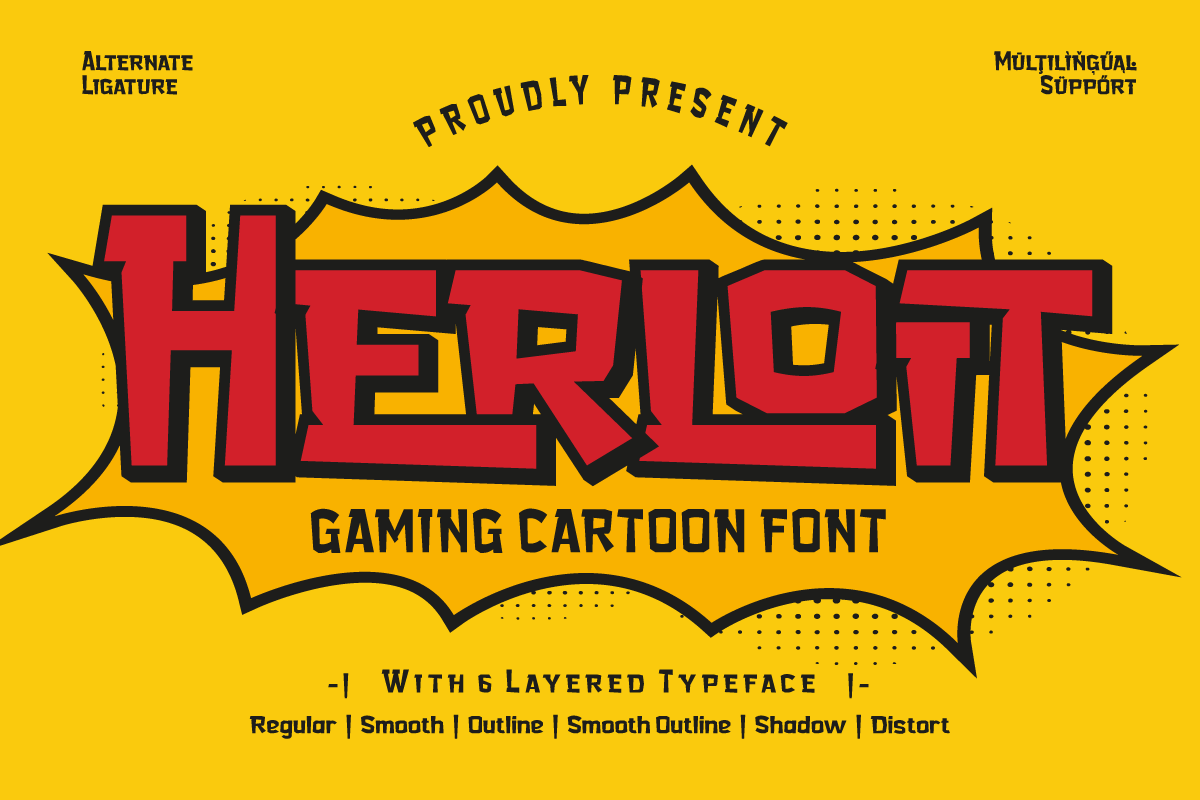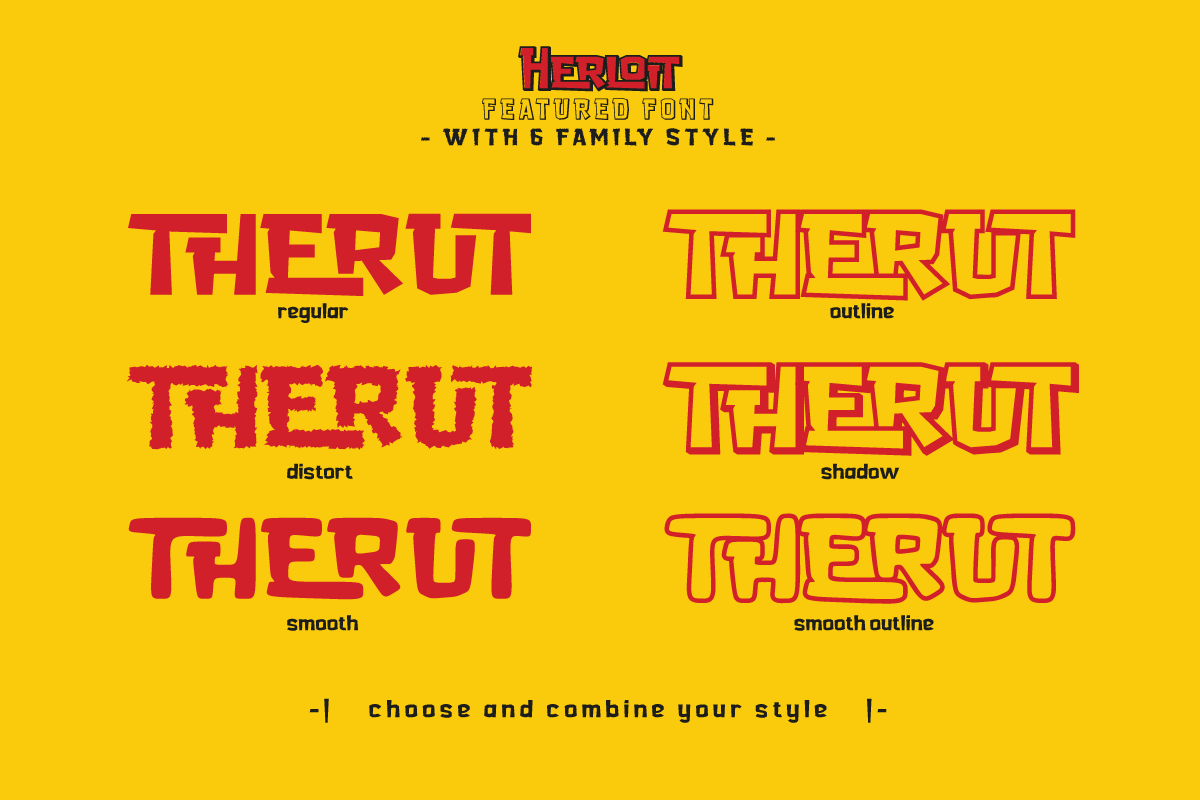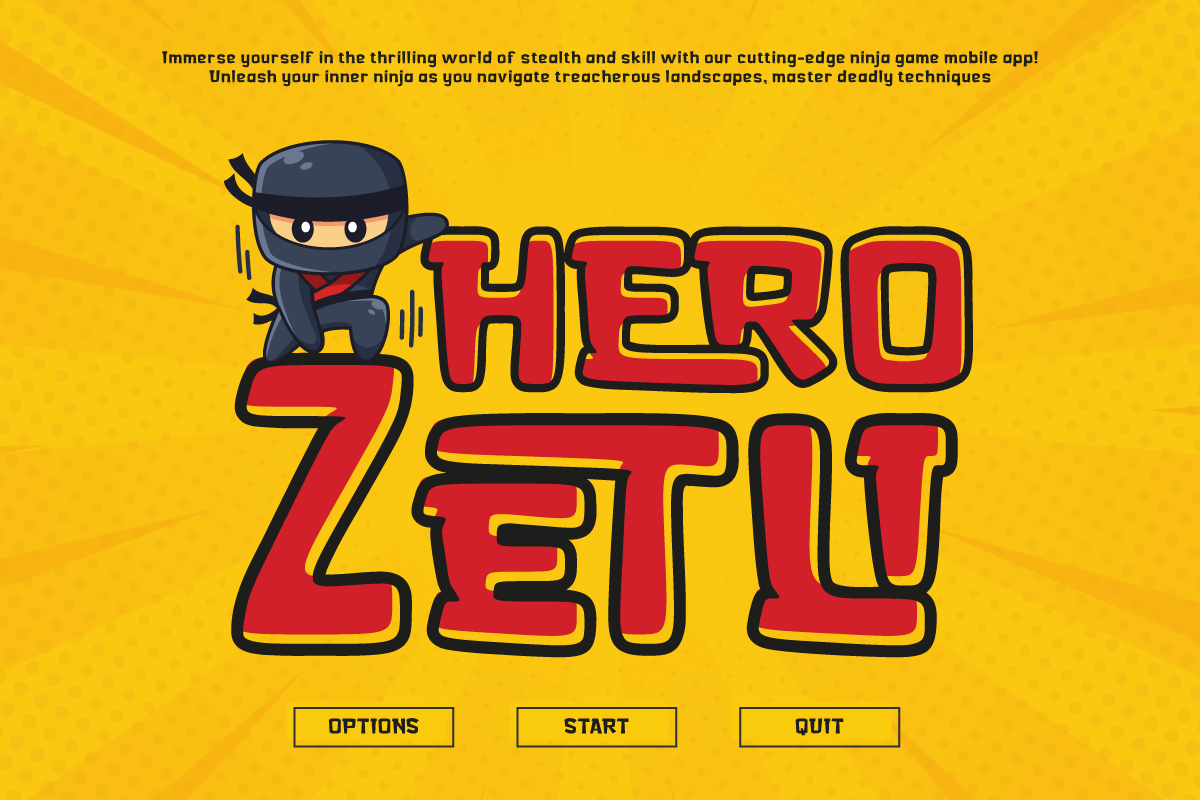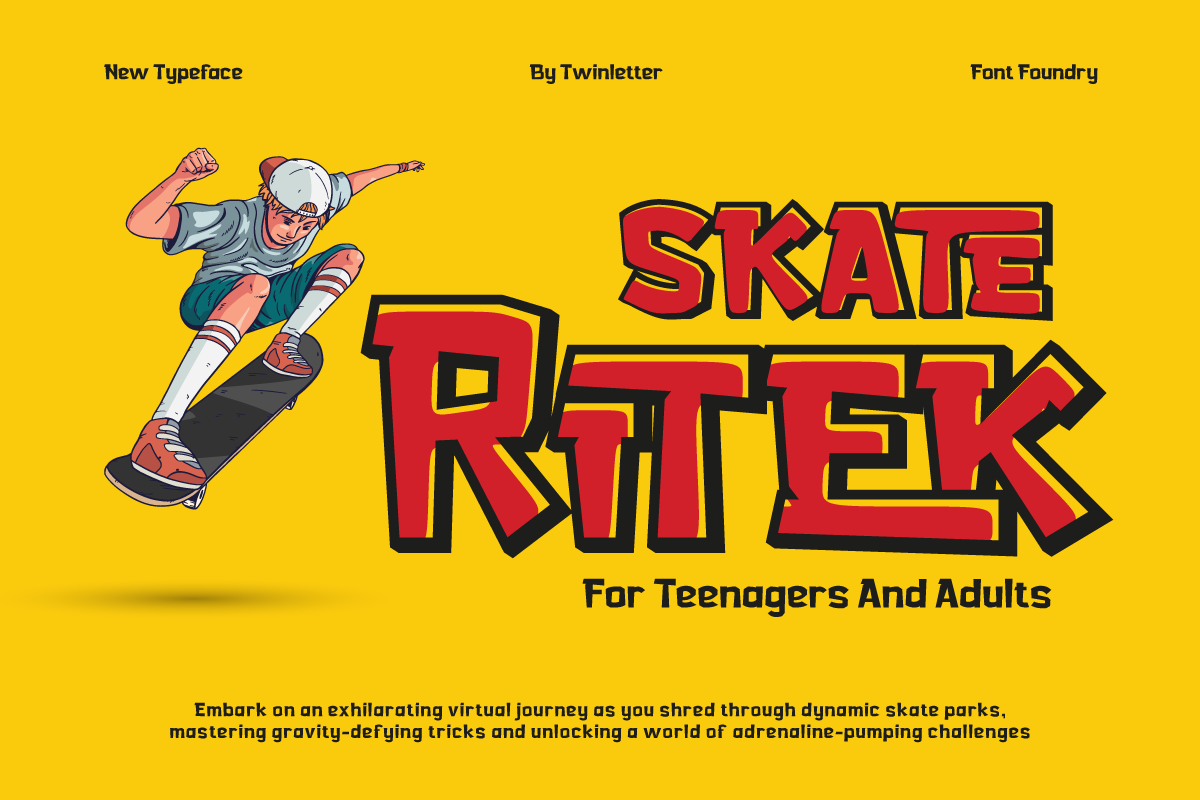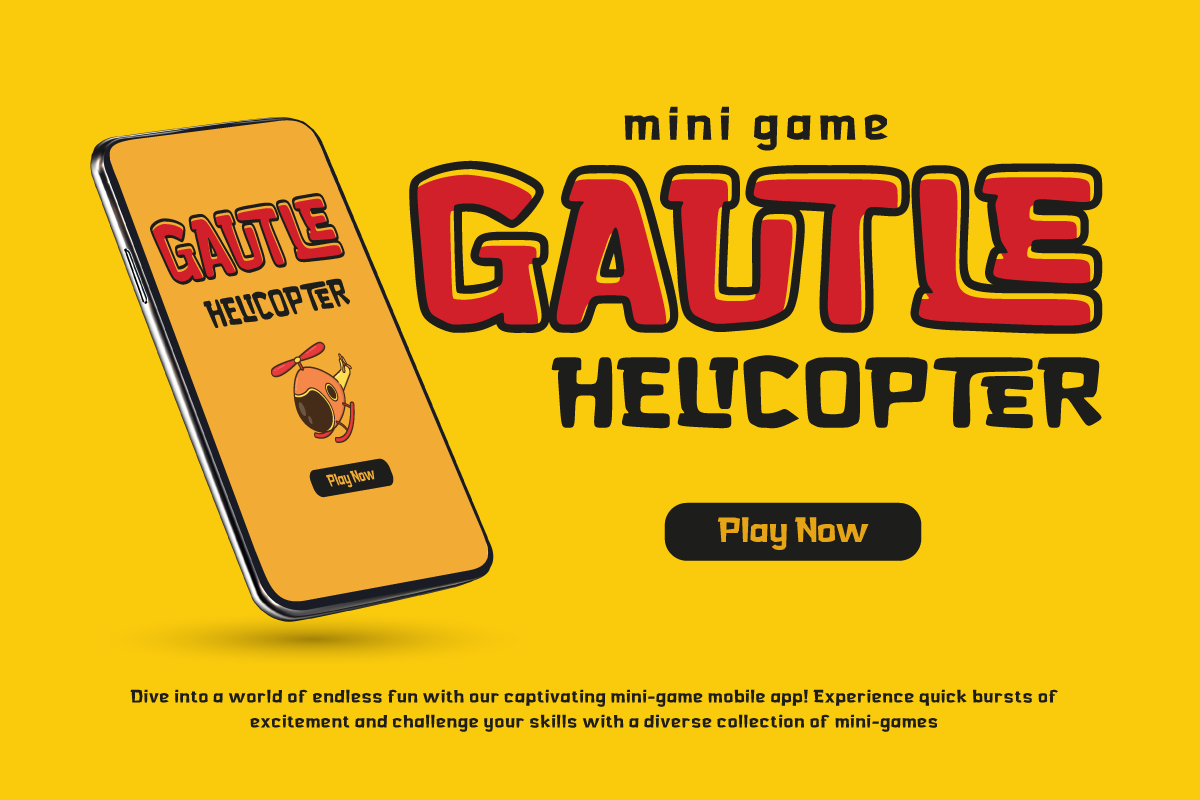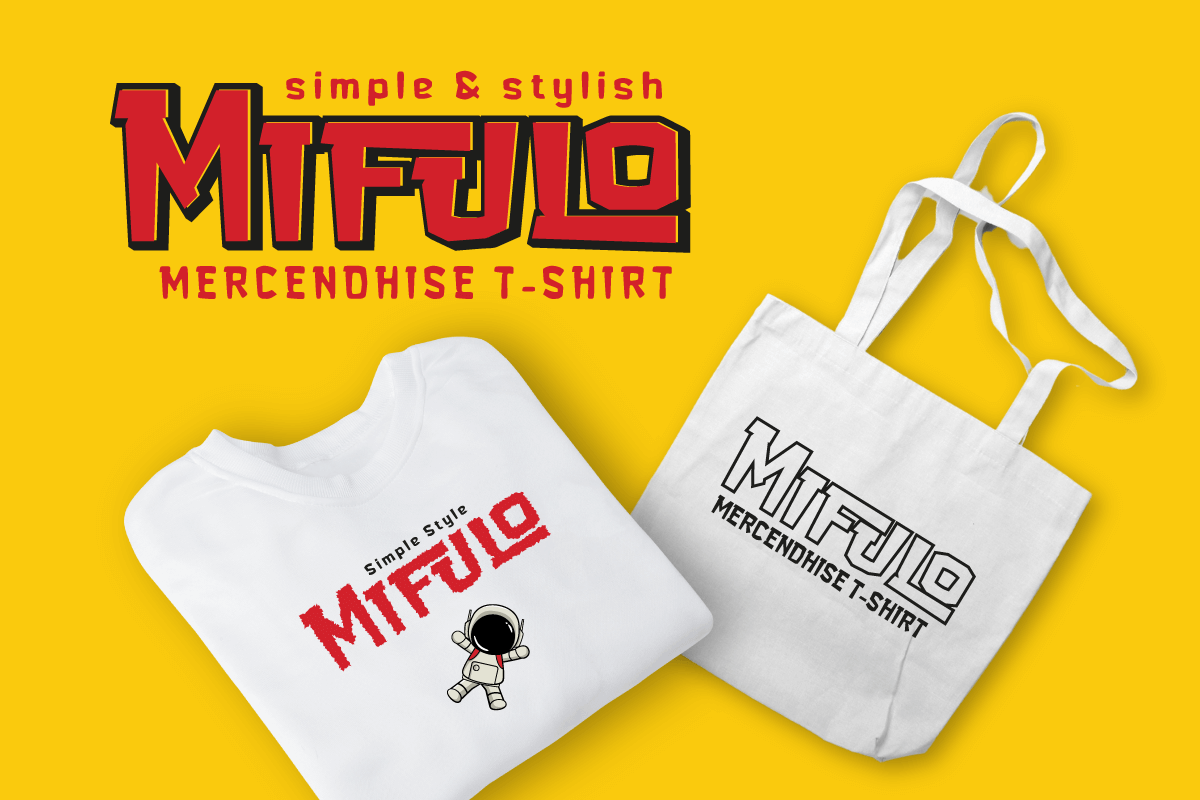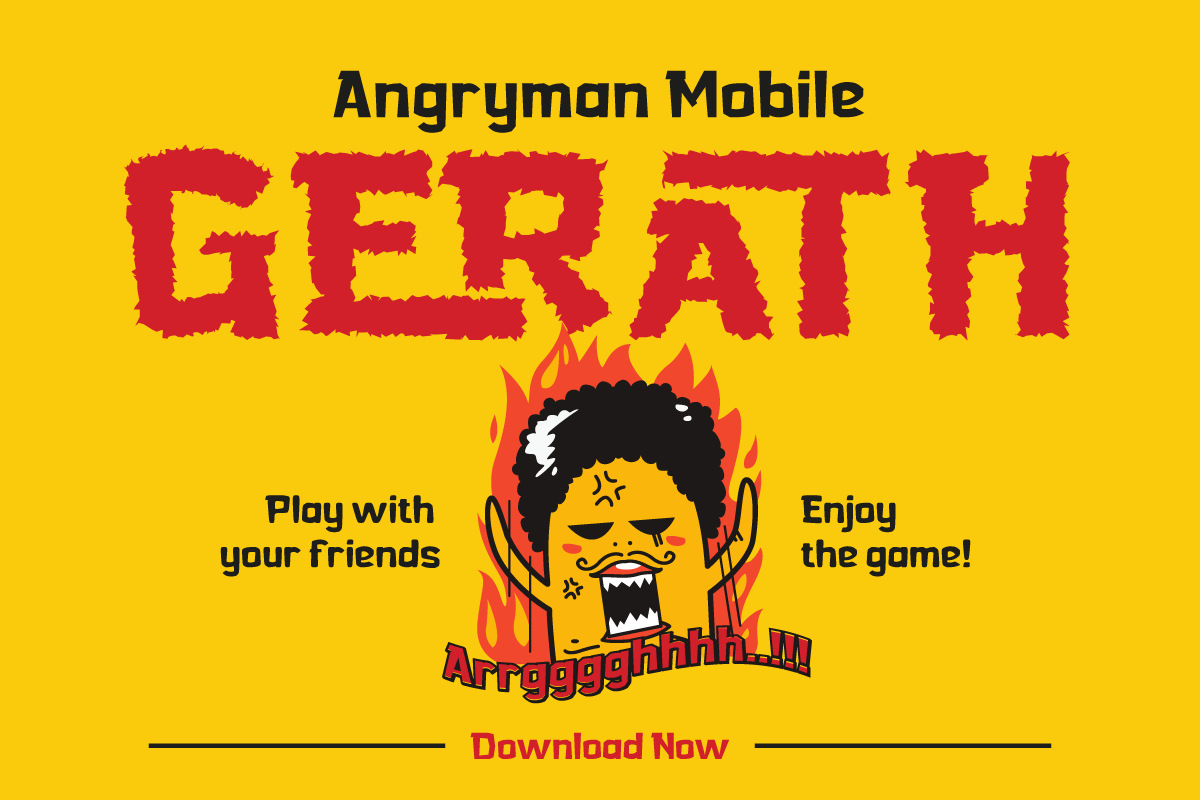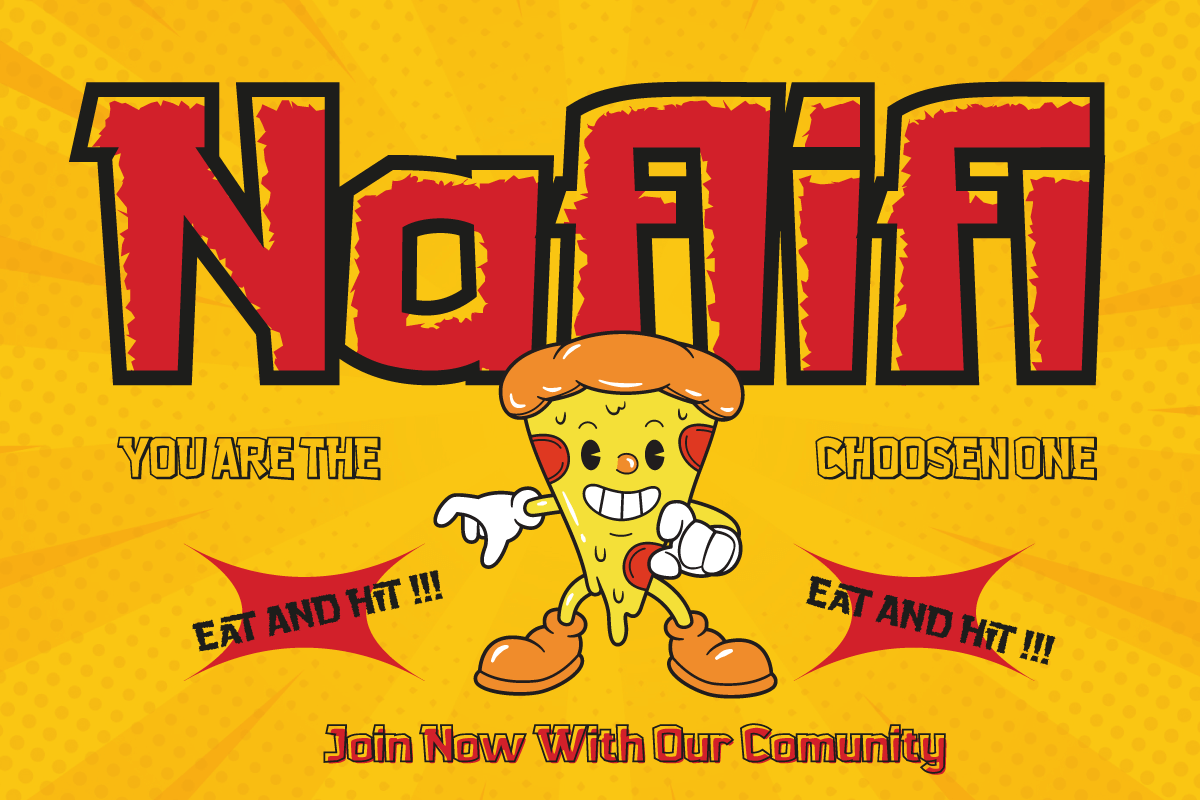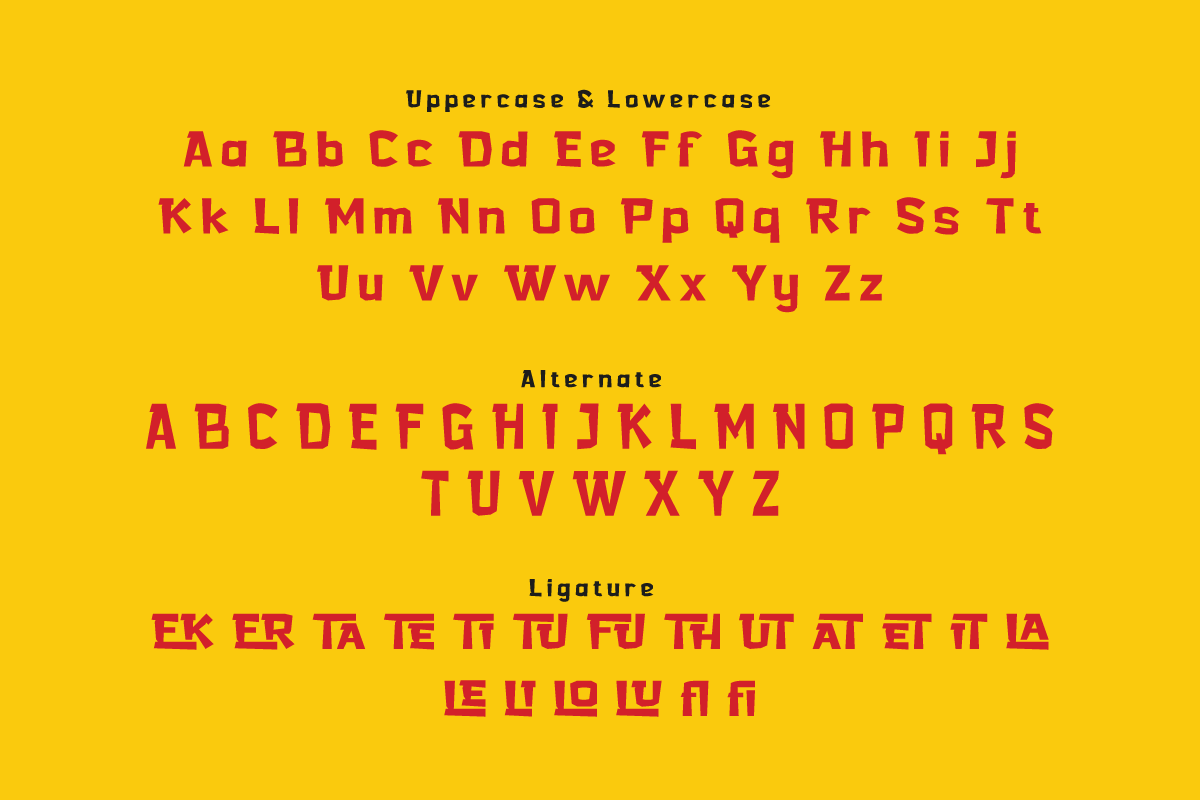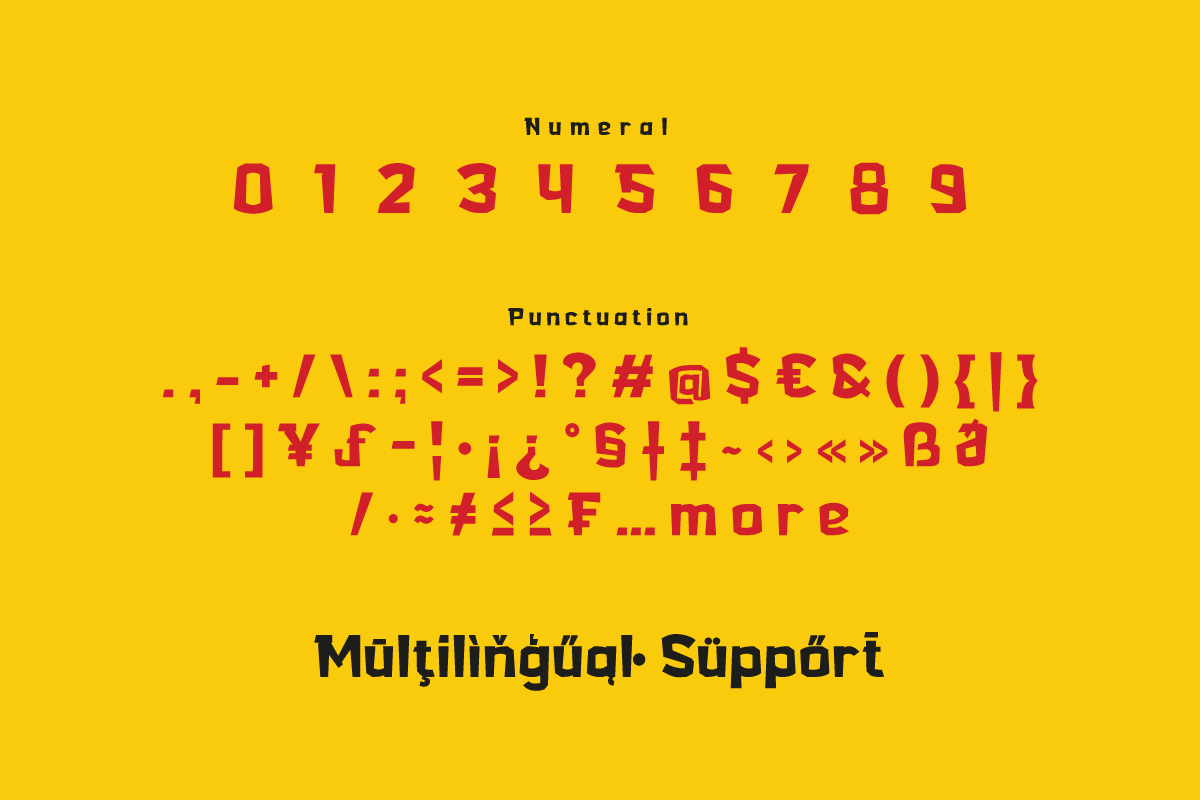
5. Herloit – Gaming Display Font
Herloit – Gaming Display Font
Smooth
Smooth-Outline
Shadow
Outline
Distord
Herloit is an unrivaled choice for gaming enthusiasts and designers who want a unique look that reflects the spirit of gaming. With six amazing styles, including Regular, Smooth, Outline, Shadow, and Distort, Herloit brings a new dimension to your designs.
The Regular style provides clarity and readability, while Smooth adds a subtle touch for a more modern aesthetic. Outline brings an artistic element, Shadow provides a deep effect, and Distort brings a striking futuristic look.
Each Herloit character is designed with precision to provide a charming aesthetic. These fonts are not just tools, they are works of art that enrich your visual design.
With six different styles, Herloit gives you the creative freedom to customize the look of your game to your liking. Bring tension, refinement, or futuristic uniqueness to every detail with Herloit Gaming Display Font.